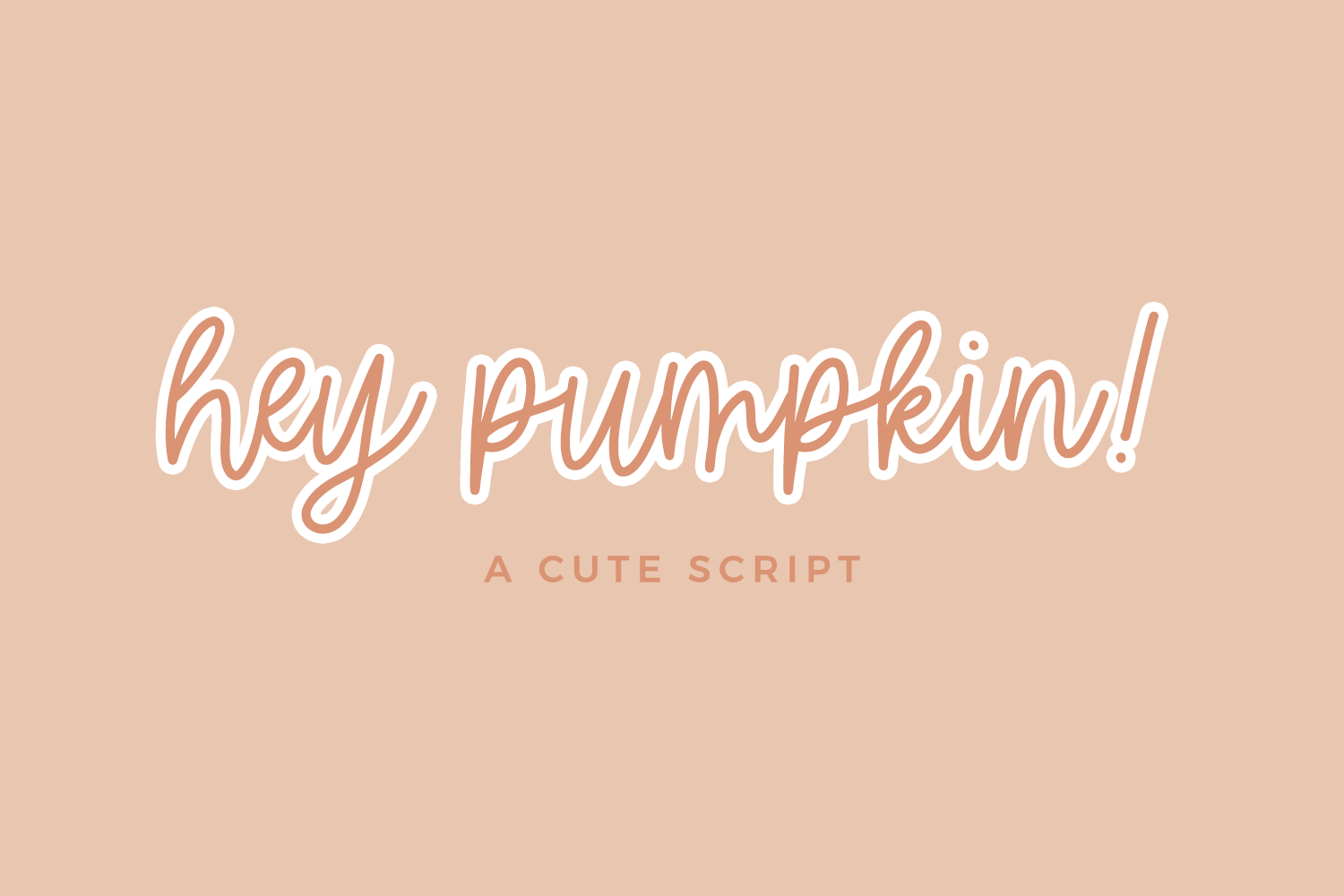
Hey, Pumpkin! Get cozy with this cute monoline script!
Hey Pumpkin is best for:
– logos + branding
– website design + website accents
– clean print design, like magazines + flyers
– header elements that need handwritten touch
– quote graphics for social media
– full upper + lowercase characters
– numbers + punctuation
– Western European Language Support
– an r in initial form and tt ligature